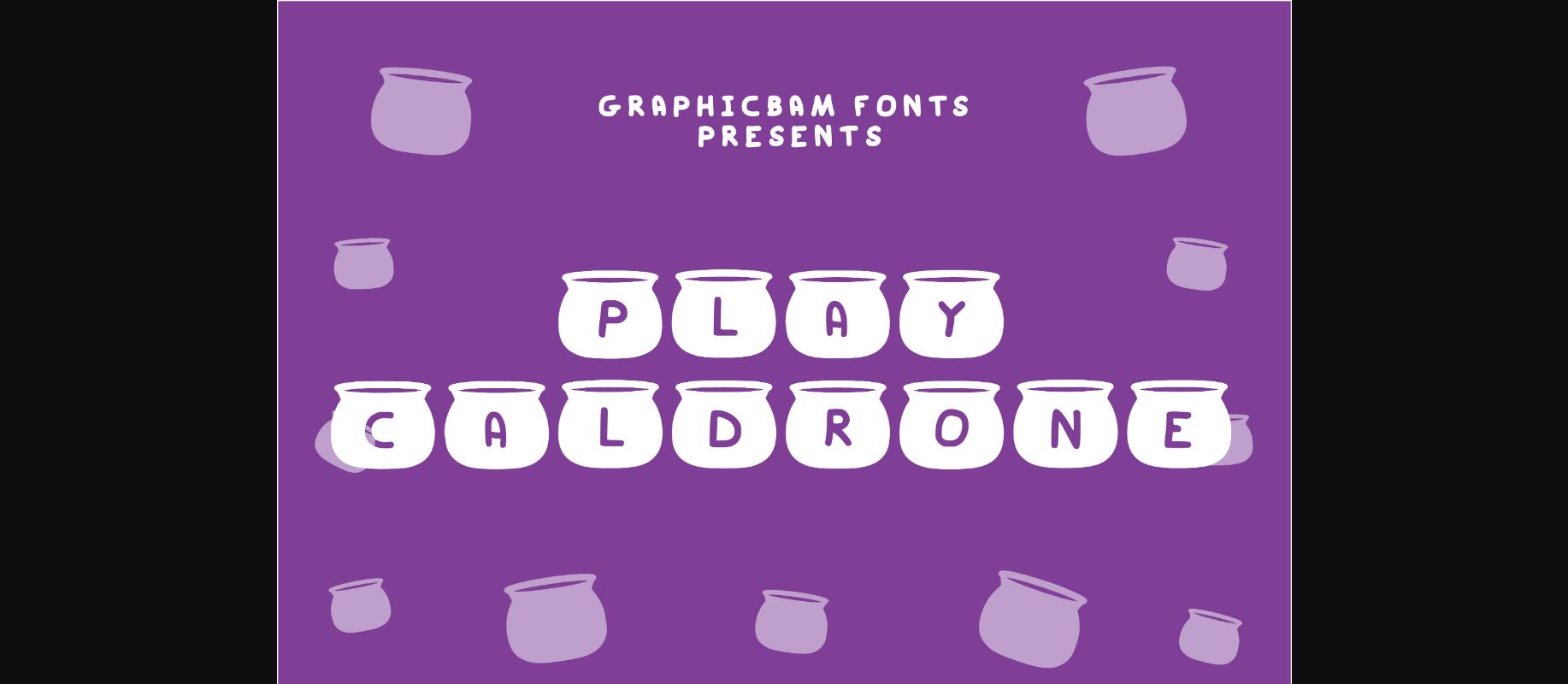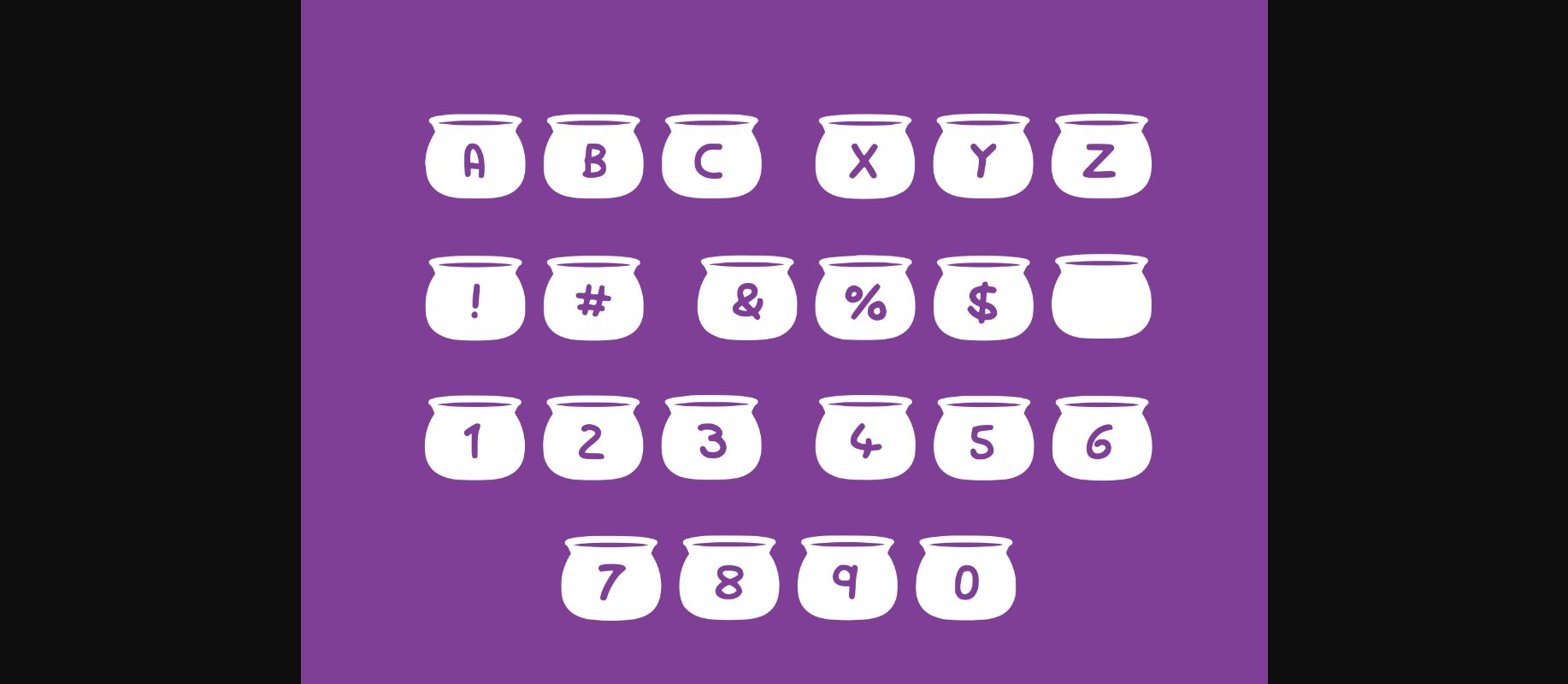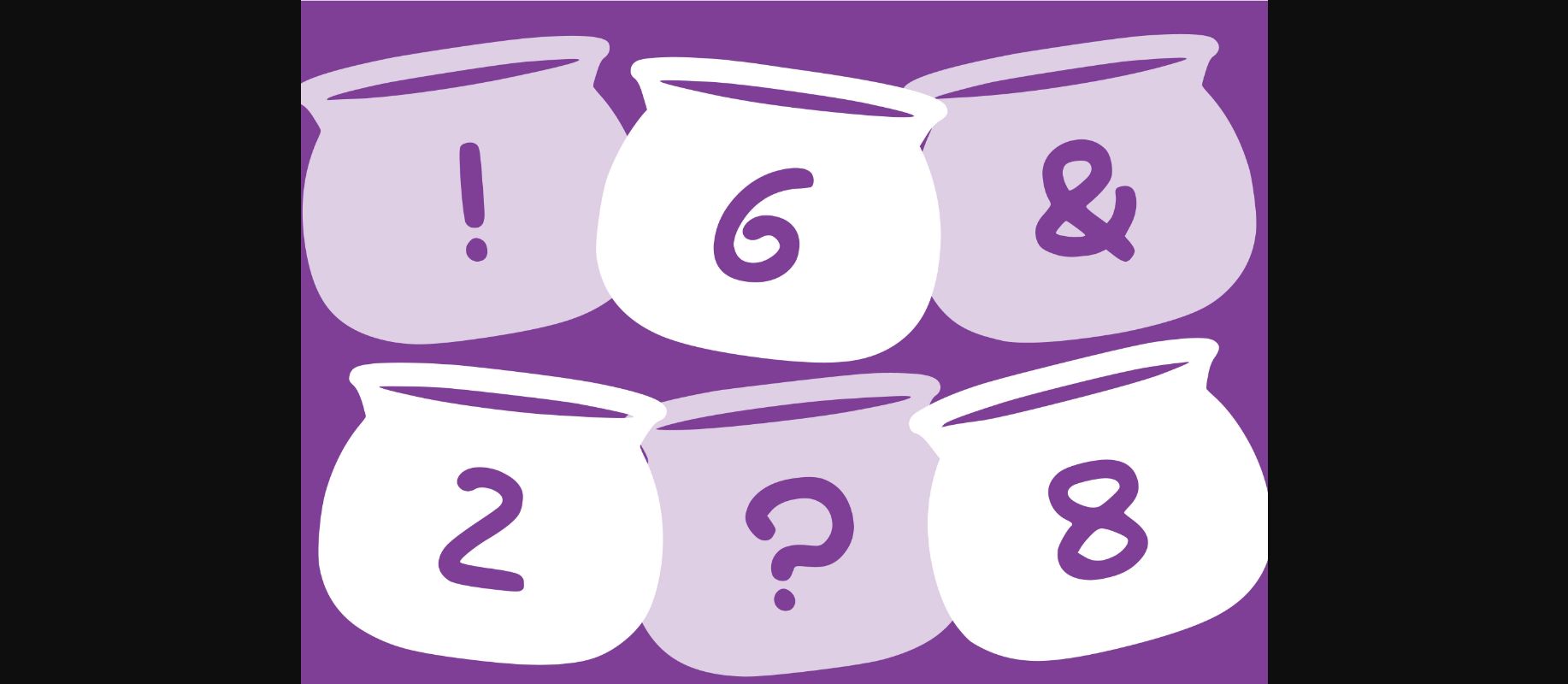
Play Caldrone is a cool looking and interesting decorative font, featuring a caldron on each character. Whether you’re using it for crafts, digital design, presentations, or making greeting cards, it’s the perfect choice.